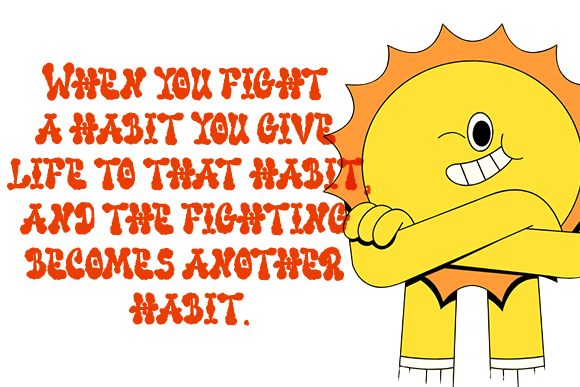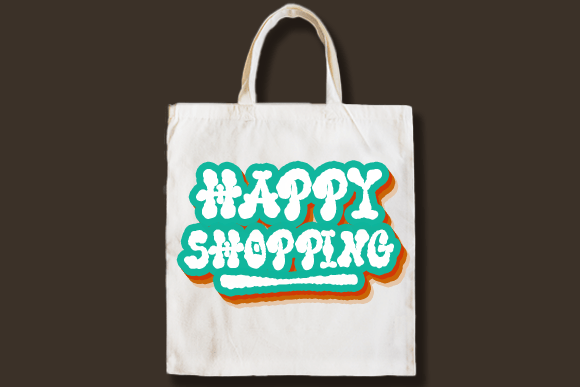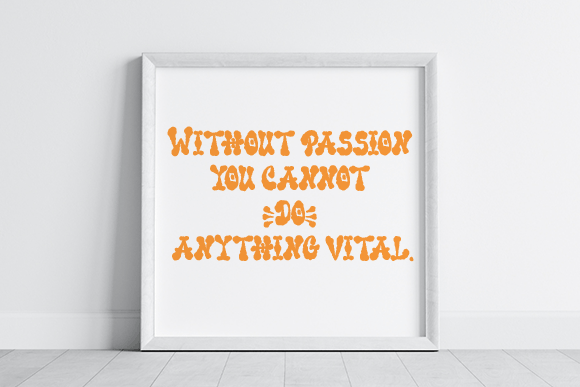
Introducing Ghipsy Hood, a ruggedly retro and delightfully groovy font that encapsulates the free-spirited vibes.
This unique font is deeply imbued with a sense of play and authenticity, making it perfect for instilling that signature hipster flair to your design projects Its versatile nature seamlessly blends into various applications, from blog posts, memorable branding, captivating ads, heartfelt invitations, cheerful greeting cards to distinctive planners.
Ghipsy Hood Font offers exceptional quality and versatility, making it a valuable addition to your design toolkit. Whether you’re creating for personal projects or commercial use, Ghipsy Hood Font delivers professional results.